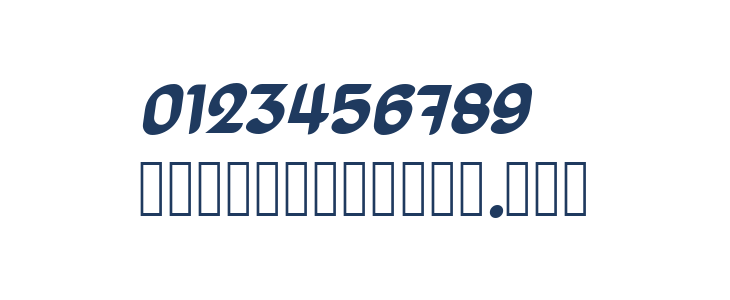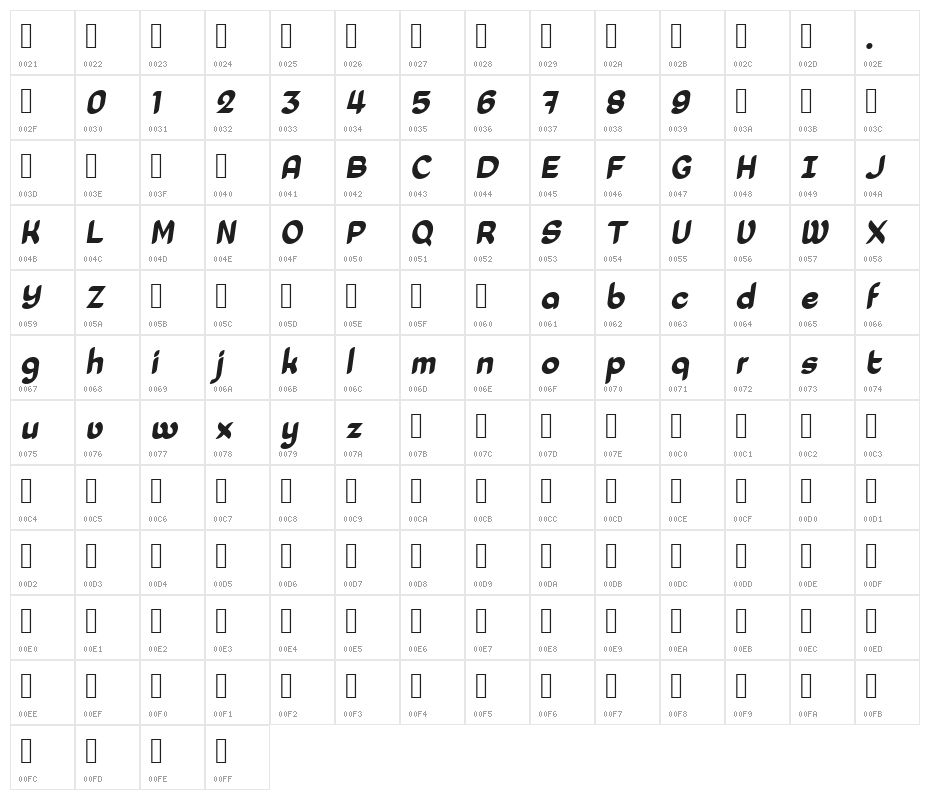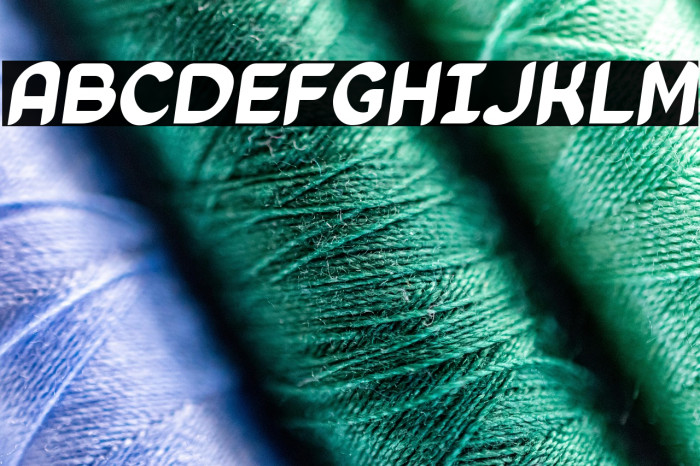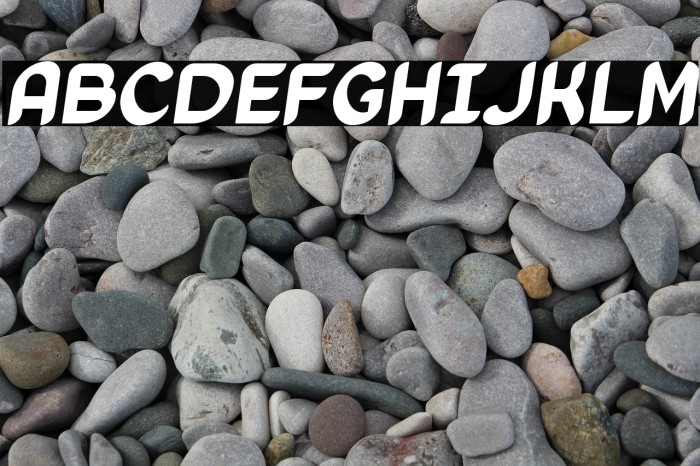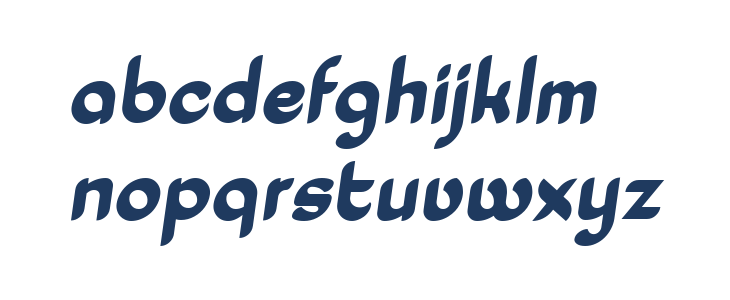
Laedoomai Italic Font
Laedoomai Italic Description
This font features a dynamic and flowing italic style, characterized by smooth curves and a slight slant that gives it a sense of motion and elegance. The uppercase and lowercase letters maintain a consistent stroke width, providing a balanced and harmonious appearance. The numerals are bold and clear, ensuring readability. Special characters are distinct and well-integrated into the overall design. The font's modern aesthetic makes it suitable for a variety of applications, offering a blend of style and functionality.
| Proposed Projects | Ideal for branding, advertising, and editorial design projects where a modern and stylish look is desired. |